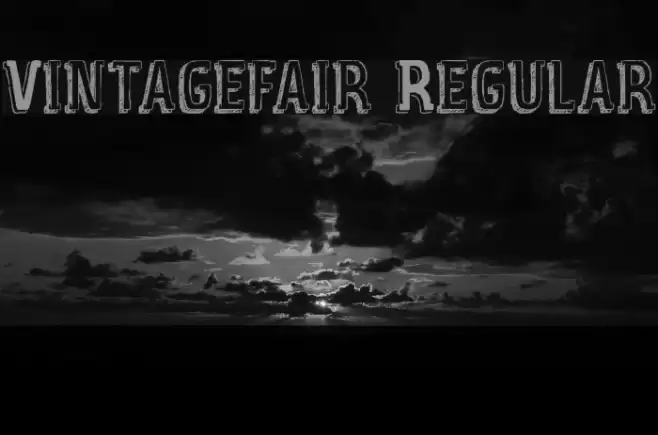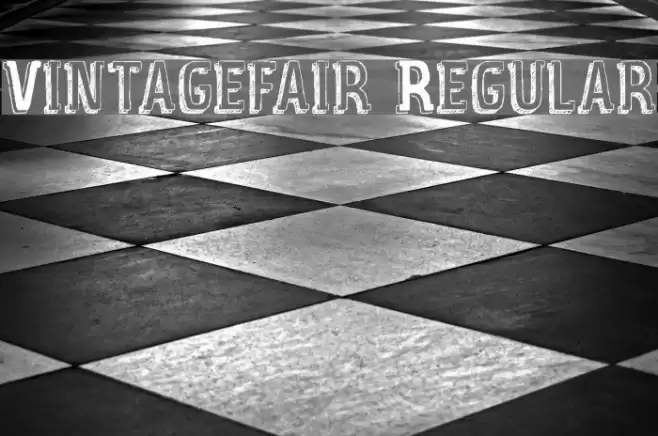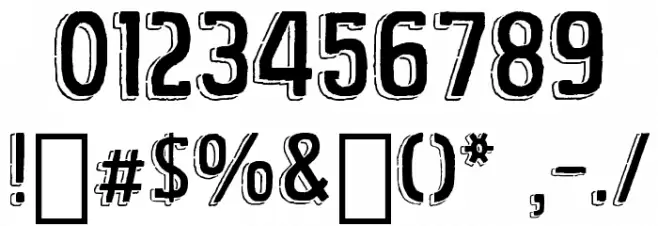
Vintage_fair Regular Font
Vintage_fair Regular Description
This font features a bold, vintage style with a distressed texture that gives it a worn, rustic appearance. The uppercase letters are prominent and commanding, while the lowercase letters maintain the same rugged aesthetic. The numbers and special characters are equally bold and textured, making them stand out. This font's unique style is reminiscent of old fairground signage or vintage posters, adding a nostalgic touch to any design. The characters are well-spaced, allowing for readability despite the heavy texture. The overall look is both decorative and functional, suitable for projects that require a touch of vintage flair.
- Proposed Projects: Ideal for vintage-themed posters, retro branding, event signage, and decorative print materials.
- Overall Style: Vintage